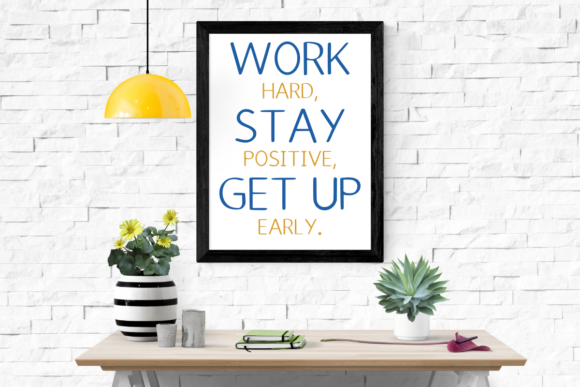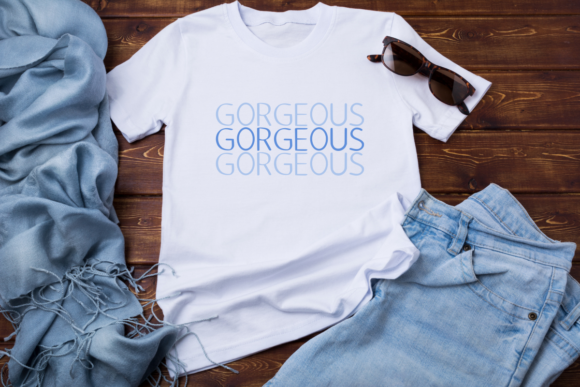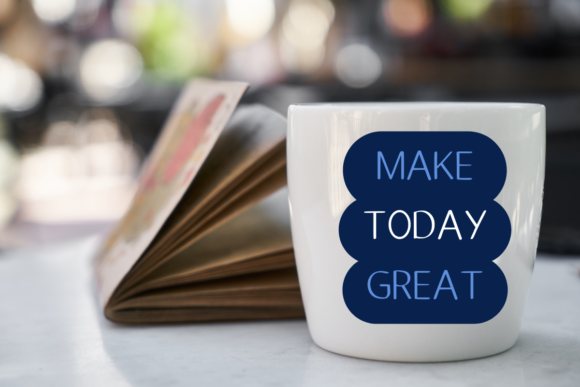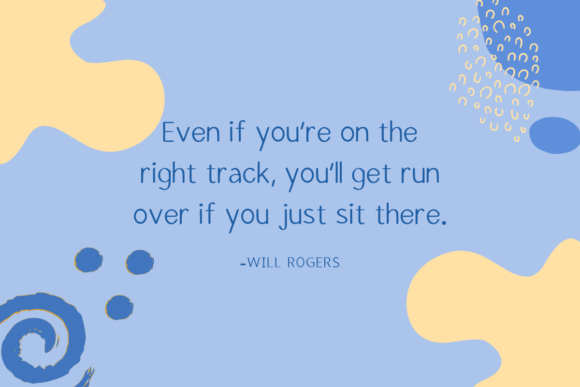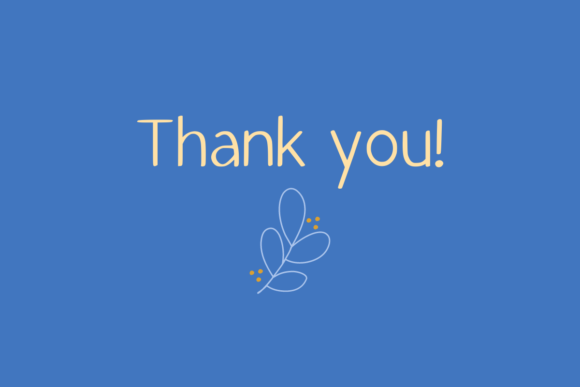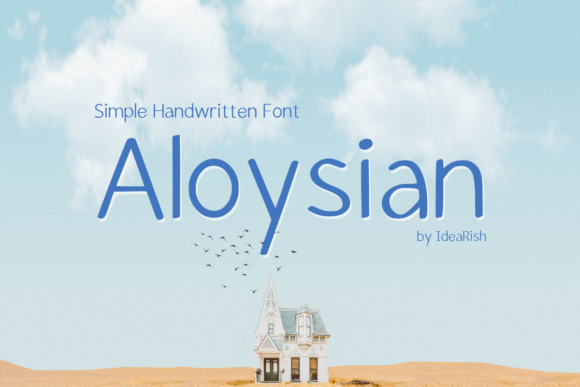
Aloysian Font: Elevate Your Designs with a Simple yet Modern Handwritten Style
In the world of typography, a font can make or break a design. For designers and crafters looking for a clean, modern, and versatile typeface, Aloysian Font is an excellent choice. This simple and elegant handwritten font is perfect for a wide range of creative projects, from traditional media to web design. In this article, we’ll dive into the features and benefits of Aloysian Font, and explore how it can elevate your designs.
What is Aloysian Font?
Aloysian Font is a modern handwritten font that boasts a light weight, making it an ideal choice for designs that require a subtle yet sophisticated touch. With support for all characters of the English language, this font is versatile and easy to use. Its simplicity is its greatest strength, allowing it to seamlessly integrate into various design styles and applications.
Key Features of Aloysian Font
• Simple and Modern Design: Aloysian Font features a clean and contemporary design that will add a touch of elegance to any project.
• Light Weight: The font’s light weight makes it perfect for designs that require a subtle and understated typeface.
• English Language Support: With support for all characters of the English language, Aloysian Font is easy to use and versatile.
• Handwritten Style: The font’s handwritten style adds a personal touch to any design, making it perfect for creative projects.
Benefits of Using Aloysian Font
So, why choose Aloysian Font for your next design project? Here are just a few benefits of using this amazing font:
• Easy to Read: The simplicity of Aloysian Font makes it easy to read, even at small font sizes.
• Versatile: The font’s clean design and English language support make it suitable for a wide range of design applications, from brochures to websites.
• Time-Saving: With Aloysian Font, you can create professional-looking designs in no time, thanks to its clean and elegant design.
• Unique Touch: The font’s handwritten style adds a personal touch to any design, setting it apart from more traditional typefaces.
How to Use Aloysian Font in Your Designs
Using Aloysian Font in your designs is easy. Here are a few tips to get you started:
• Pair it with Other Fonts: Combine Aloysian Font with other fonts to create a unique and visually appealing design.
• Experiment with Font Sizes: Play around with different font sizes to add emphasis and create visual hierarchy in your design.
• Use it for Body Text: Aloysian Font is perfect for body text, thanks to its readability and clean design.
• Add a Personal Touch: Use Aloysian Font to add a personal touch to your designs, such as in headings or titles.
In conclusion, Aloysian Font is a simple yet modern handwritten font that is perfect for designers and crafters looking for a versatile and elegant typeface. With its light weight, English language support, and clean design, this font is suitable for a wide range of creative projects. Whether you’re working on a traditional media project or a web design, Aloysian Font is an excellent choice. So why not give it a try and see how it can elevate your designs?